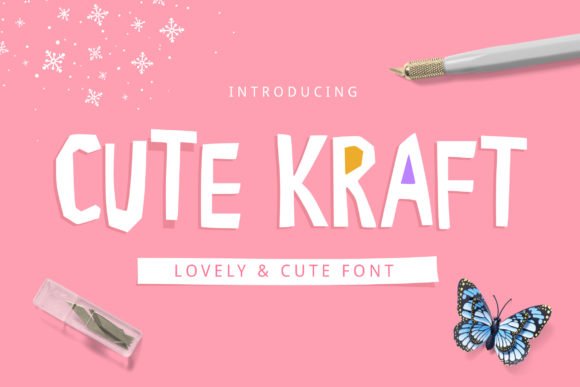
Discover the Magic of Cute Kraft Font
As designers, we’ve all been there – staring at a blank canvas, struggling to find the perfect font to bring our creative vision to life. And then, suddenly, it hits us – a burst of inspiration, a dash of whimsy, and a sprinkle of charm. That’s exactly what happens when you meet the adorable Cute Kraft Font.
This artistic display font is more than just a pretty face – it’s a game-changer for designers looking to add a playful and charming vibe to their projects. With its modern twist and lovable aesthetic, Cute Kraft Font is the perfect addition to any design arsenal.
Cute Kraft Font Key Features
- Unique Characteristics: Cute Kraft Font features a distressed, hand-drawn look with a vintage feel, making it perfect for creating a nostalgic or retro aesthetic in designs.
Cute Kraft Font Review
I recently had the chance to work with the Cute Kraft Font, and I must say it’s a unique addition to any design project. Here are my thoughts on what works well and what doesn’t:
- Playful vibe**: The Cute Kraft Font exudes a fun, playful personality that’s perfect for kids’ content, food labels, or any project that needs a lighthearted touch.
- Distressed texture**: The font’s distressed texture adds a nice layer of depth and visual interest to any design.
- Customization options**: The font offers a range of customization options, including color and size adjustments, which makes it easy to adapt to different design needs.
- Readability issues**: At smaller font sizes, the Cute Kraft Font can become difficult to read, especially for those with visual impairments.
- Limited compatibility**: The font may not work well with certain font sizes or line heights, which can lead to formatting issues.
Overall, the Cute Kraft Font is a fun and creative addition to any design project. While it has some limitations, its playful vibe and customization options make it a great choice for the right projects. Just be mindful of readability and compatibility issues, and you’ll be golden.
To get the most out of Cute Kraft Font, use it for:
Designing invitations, greeting cards, and party decorations.
Creating social media graphics and promotional materials.
Adding a touch of whimsy and playfulness to your designs.
Alternatives to Cute Kraft Font for Designers
Pacifico is a beautiful, elegant script font that is perfect for adding a touch of sophistication to your designs. It works well for branding, logos, and other creative projects where a handwritten feel is desired. Pacifico is a more refined and polished alternative to Cute Kraft Font, making it suitable for a wider range of applications.
Great Vibes is a modern, cursive script font that is great for adding a fun and playful touch to your designs. It’s perfect for social media graphics, blog posts, and other digital content where a casual, laid-back feel is desired. While it shares some similarities with Cute Kraft Font, Great Vibes has a more dynamic and energetic feel that sets it apart.
Alex Brush is a elegant, handwritten font that is perfect for adding a touch of whimsy and personality to your designs. It works well for creative projects, such as illustrations, graphics, and other visual content where a unique and artistic feel is desired. Alex Brush is a more refined and sophisticated alternative to Cute Kraft Font, making it suitable for a wider range of applications.